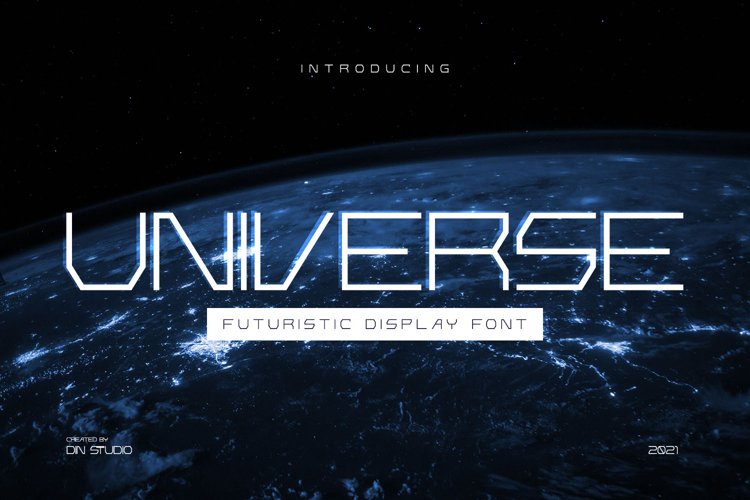
Introducing Universe - A Futuristic Display Font
This typeface with futuristic style looks very interesting for loads of different projects and promotions. It is perfect to be used on your website, for your social media branding, Pinterest banners, printed products, and more!